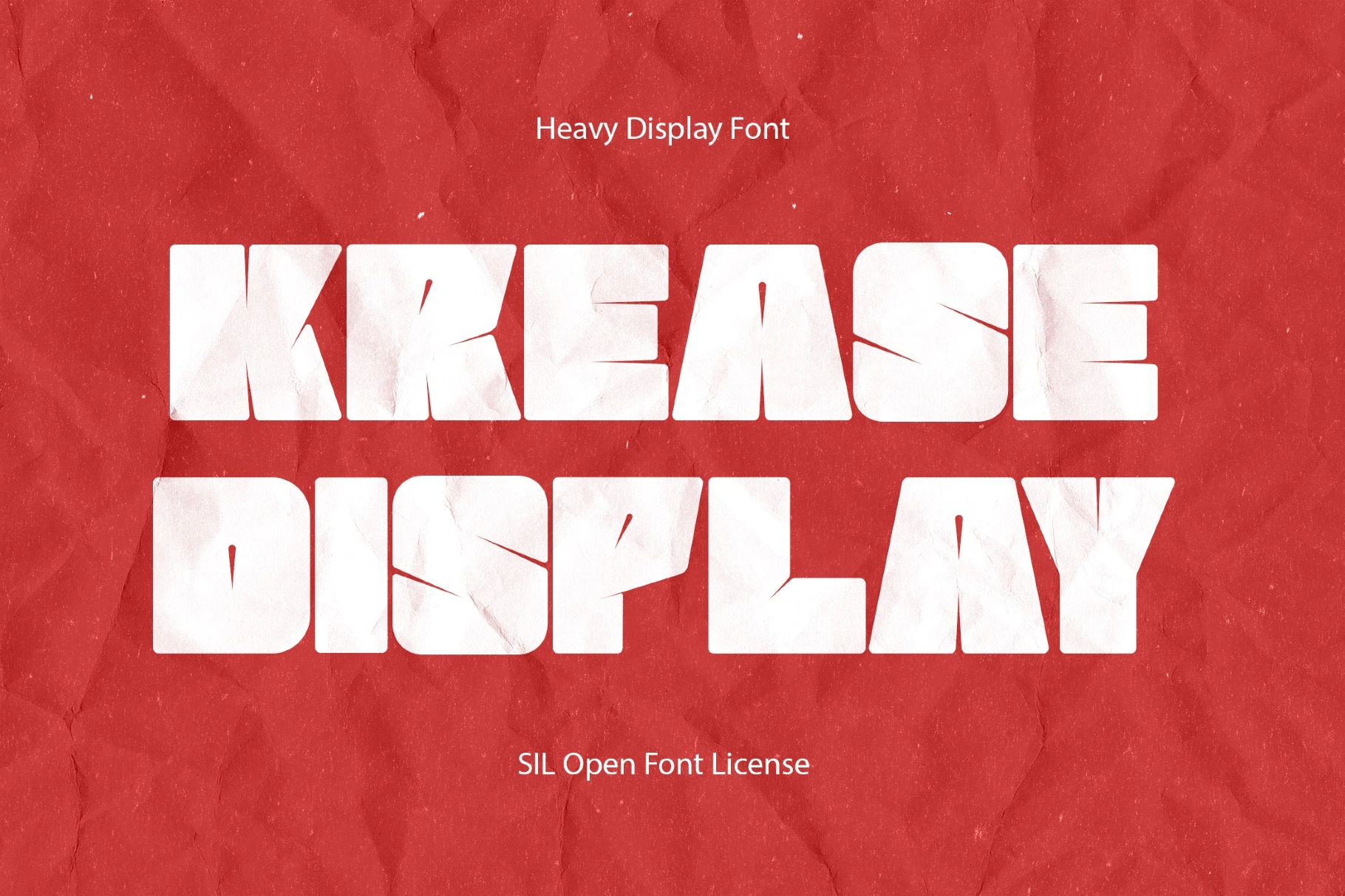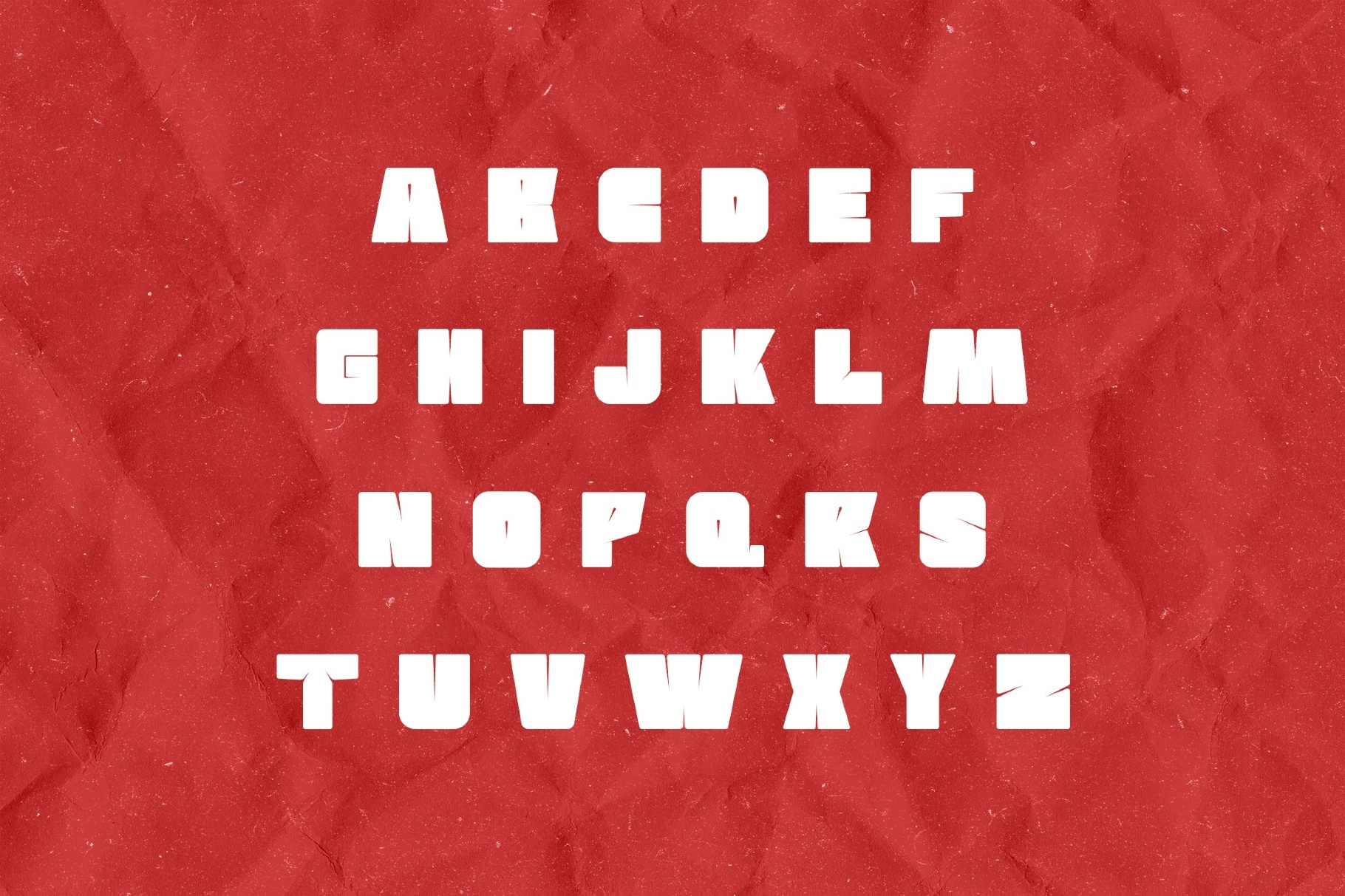
Krease Display Font
Krease Display is a compressed, heavy display font with the visual punch of brutalist posters, photocopied zines, and experimental magazine typography from the late 1990s and early 2000s. The typeface is great for poster headlines, record sleeves, streetwear branding, editorial covers, event identities, social media graphics, and packaging.